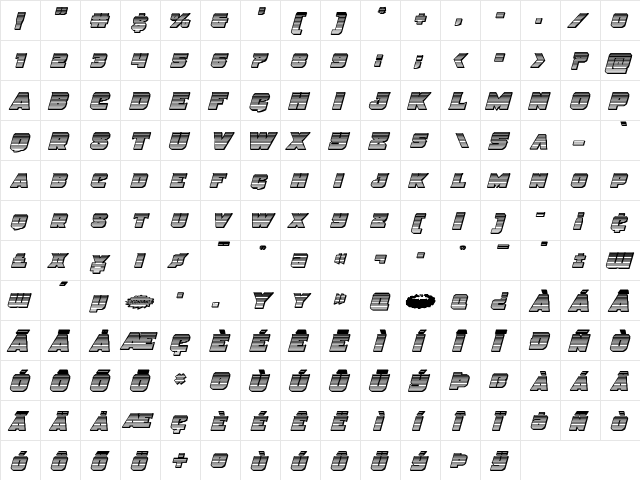
Justice Gradient Outline Outline
Design Context for Justice Gradient Outline Typeface
Justice Gradient Outline brings ornamental detail and strong personality to headlines and identities, where visual impact matters more than quiet functionality.
Font Pairing: Pair with a clean neutral sans-serif for body copy to let Justice Gradient Outline's character lead without overwhelming the composition.
Pro Tip: Treat Justice Gradient Outline as the centrepiece of your typographic hierarchy. One strong heading set in a decorative face can carry an entire layout.